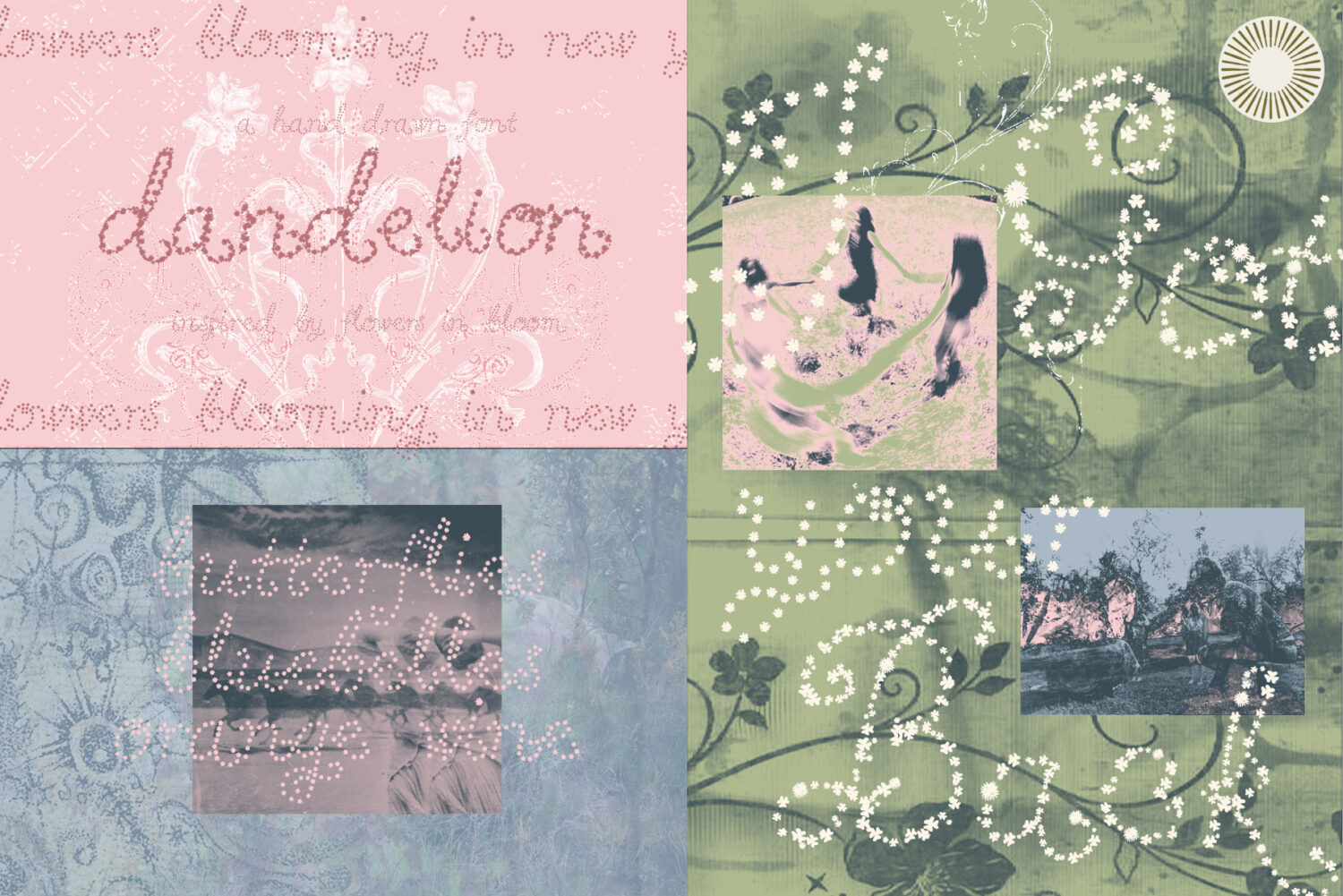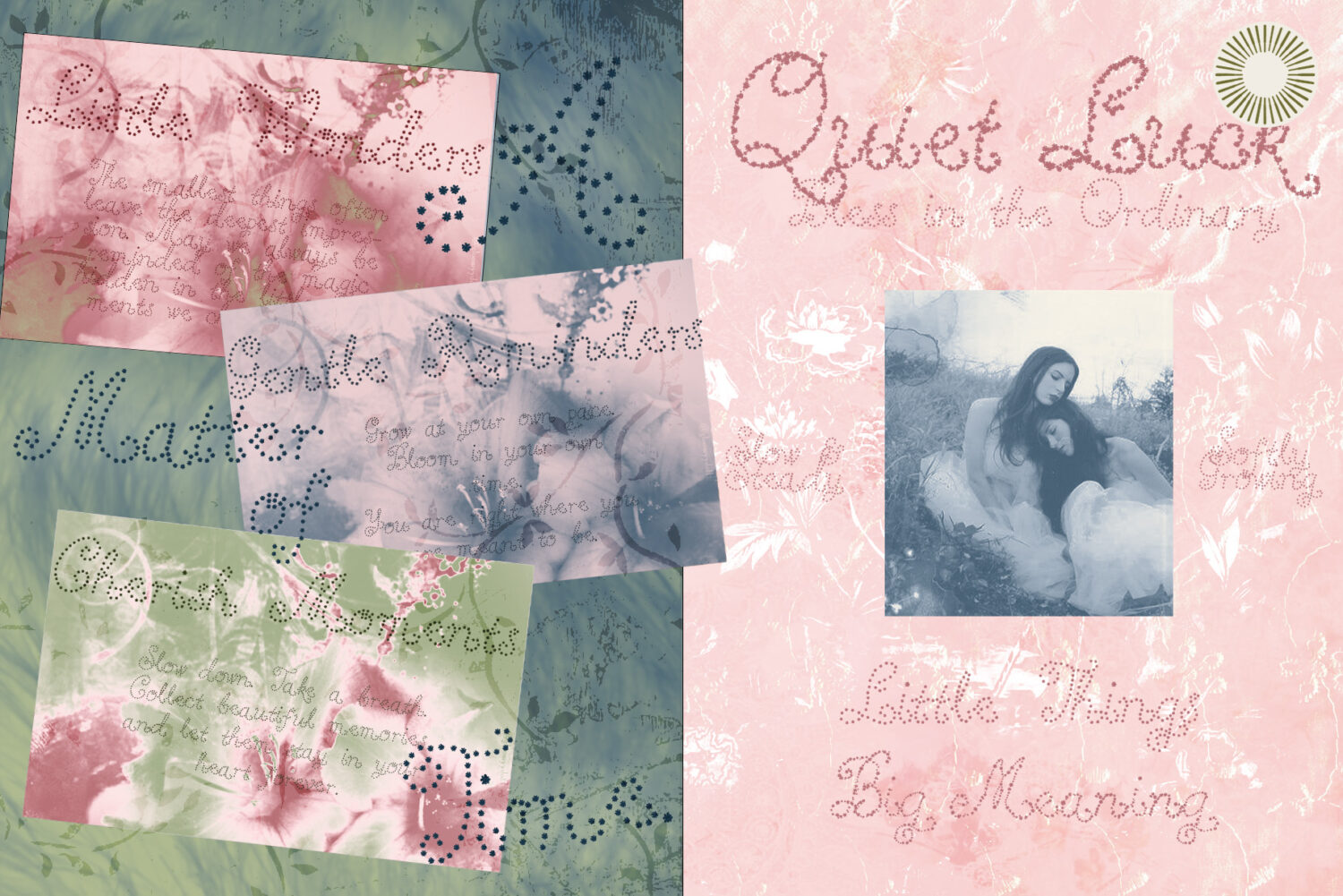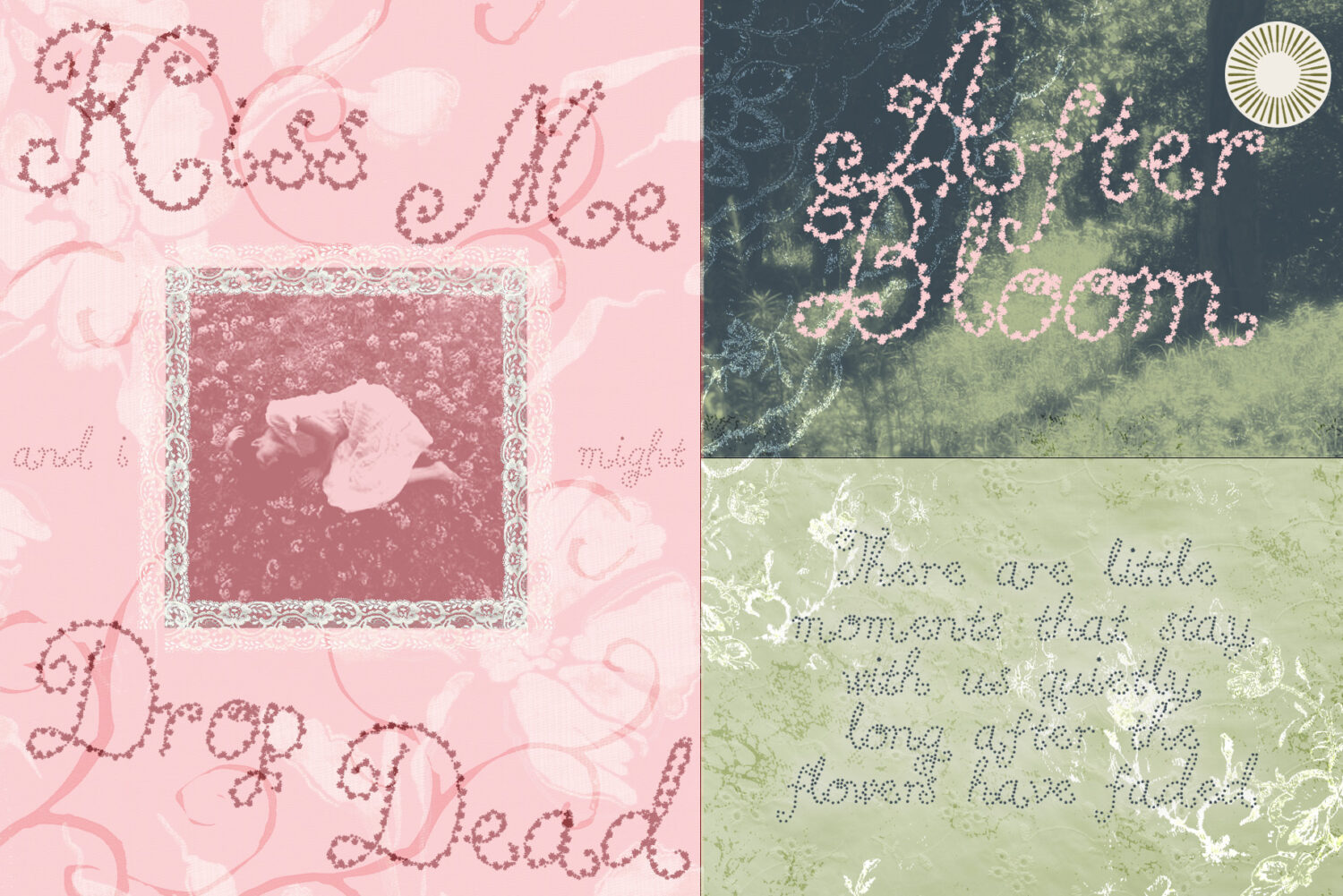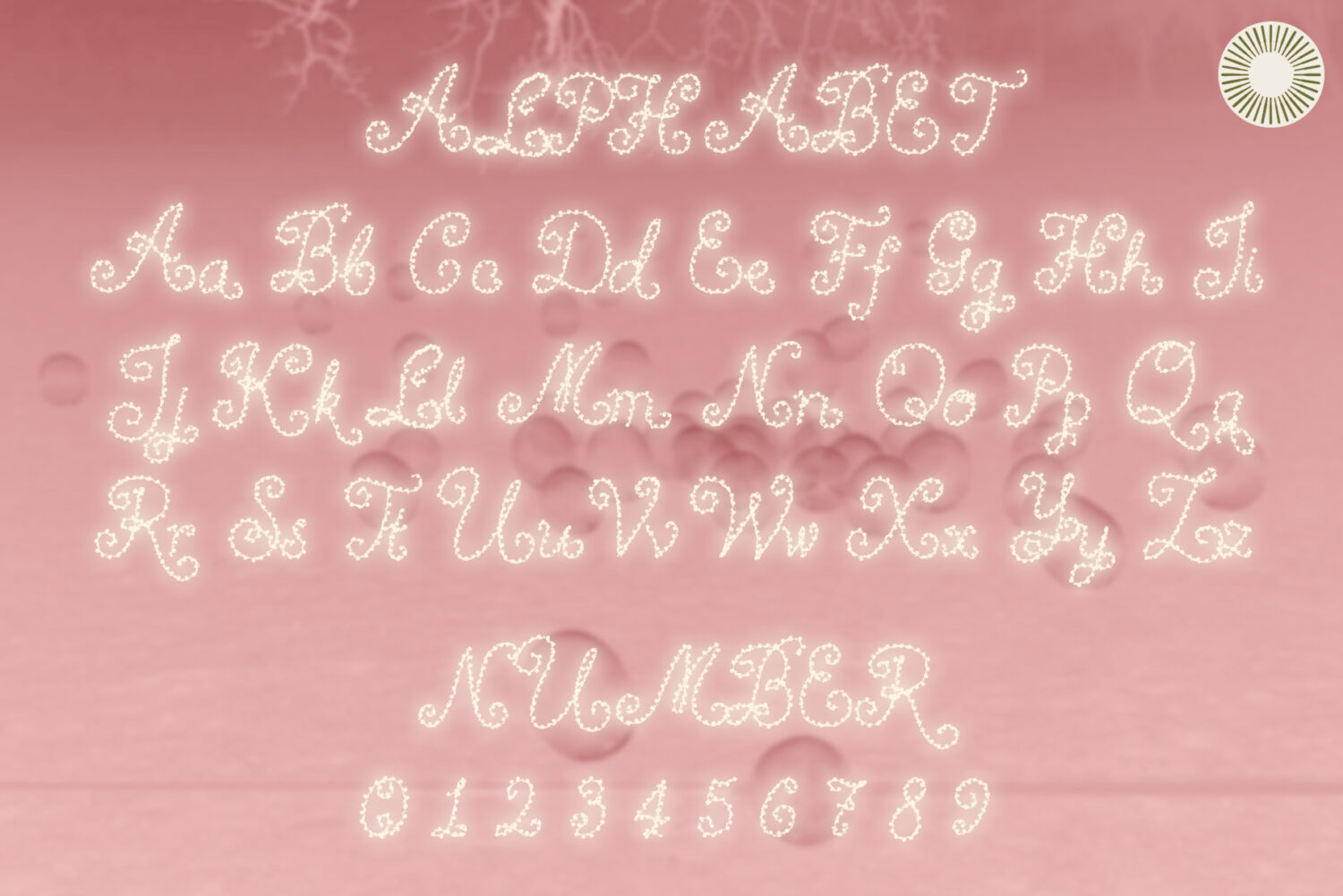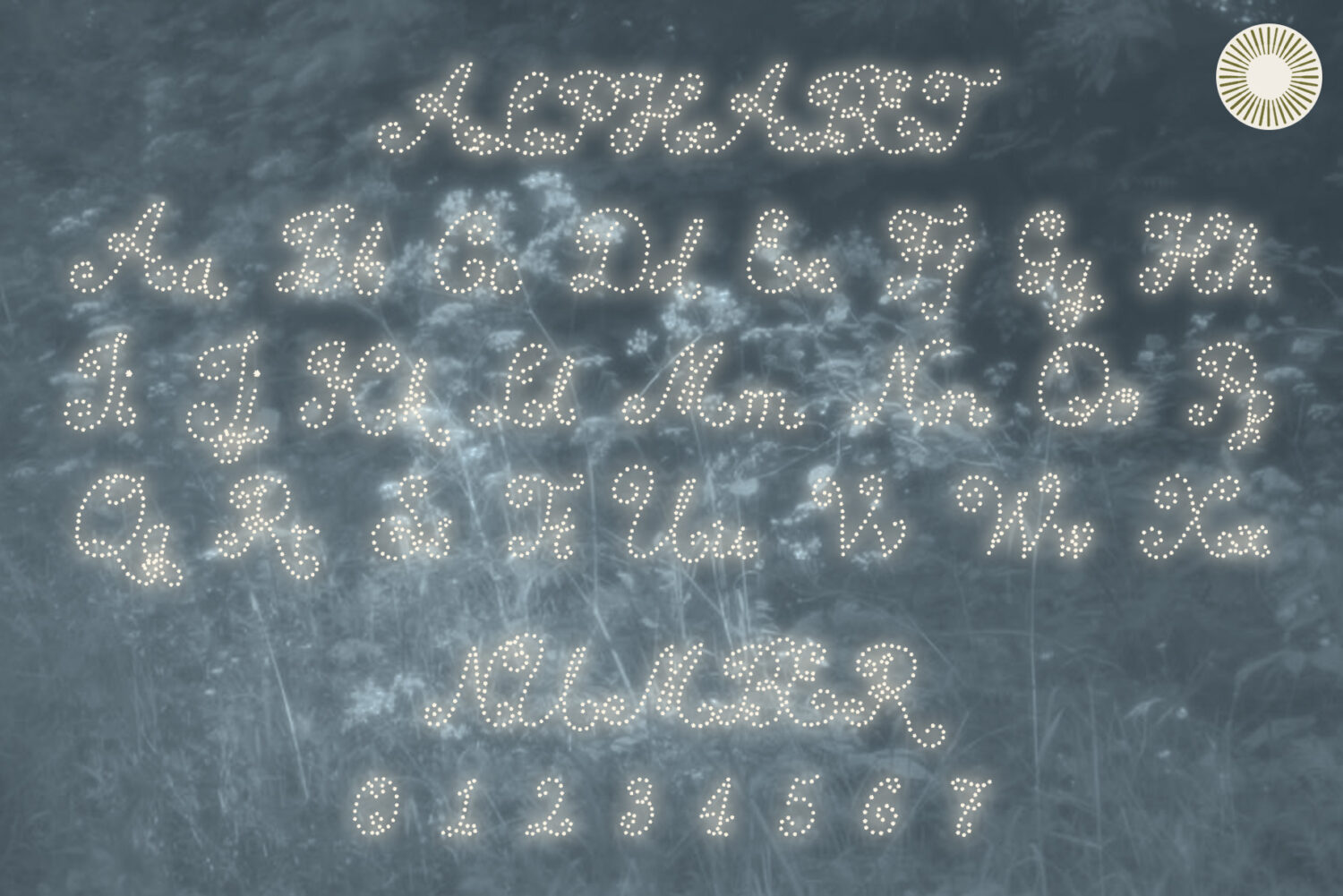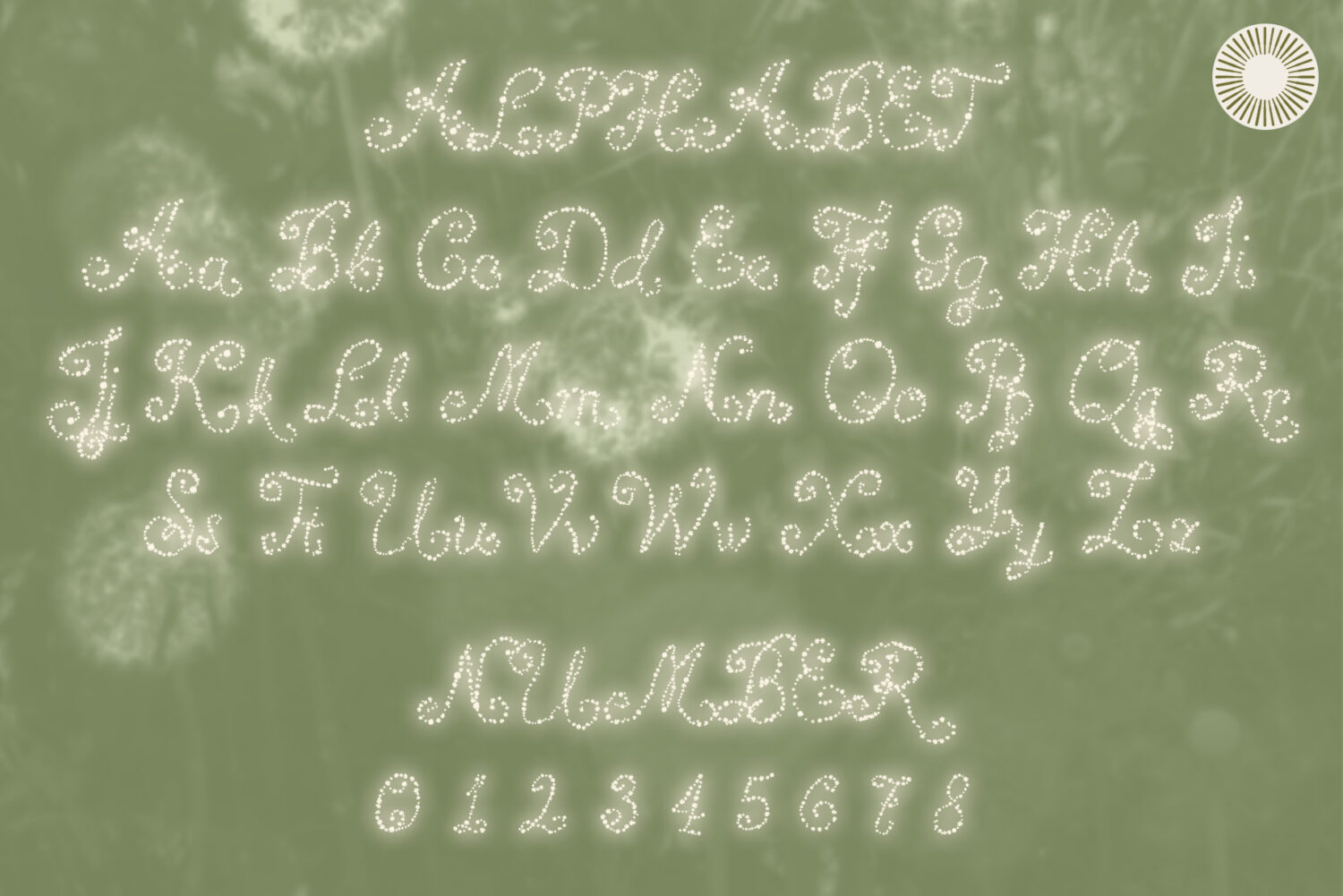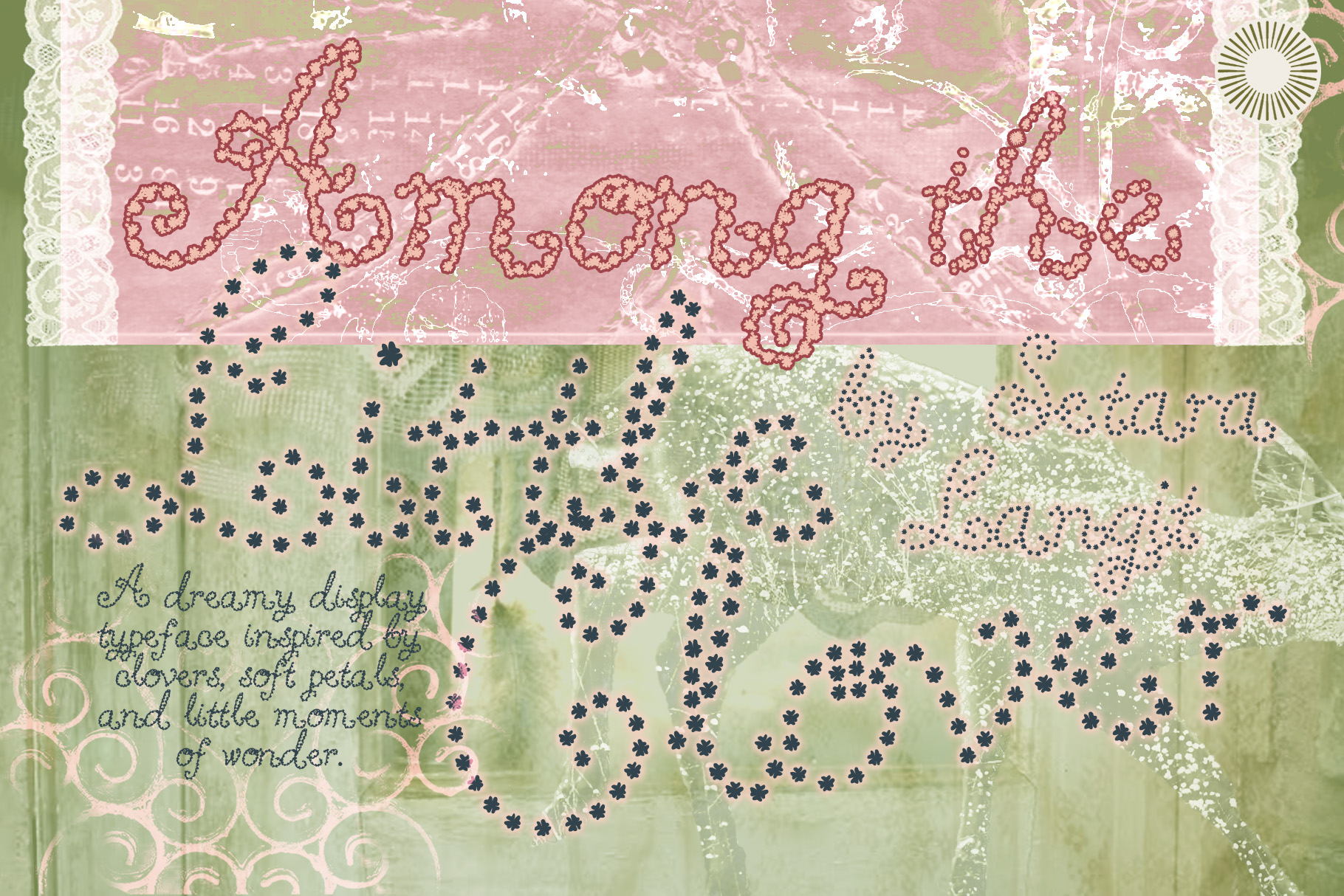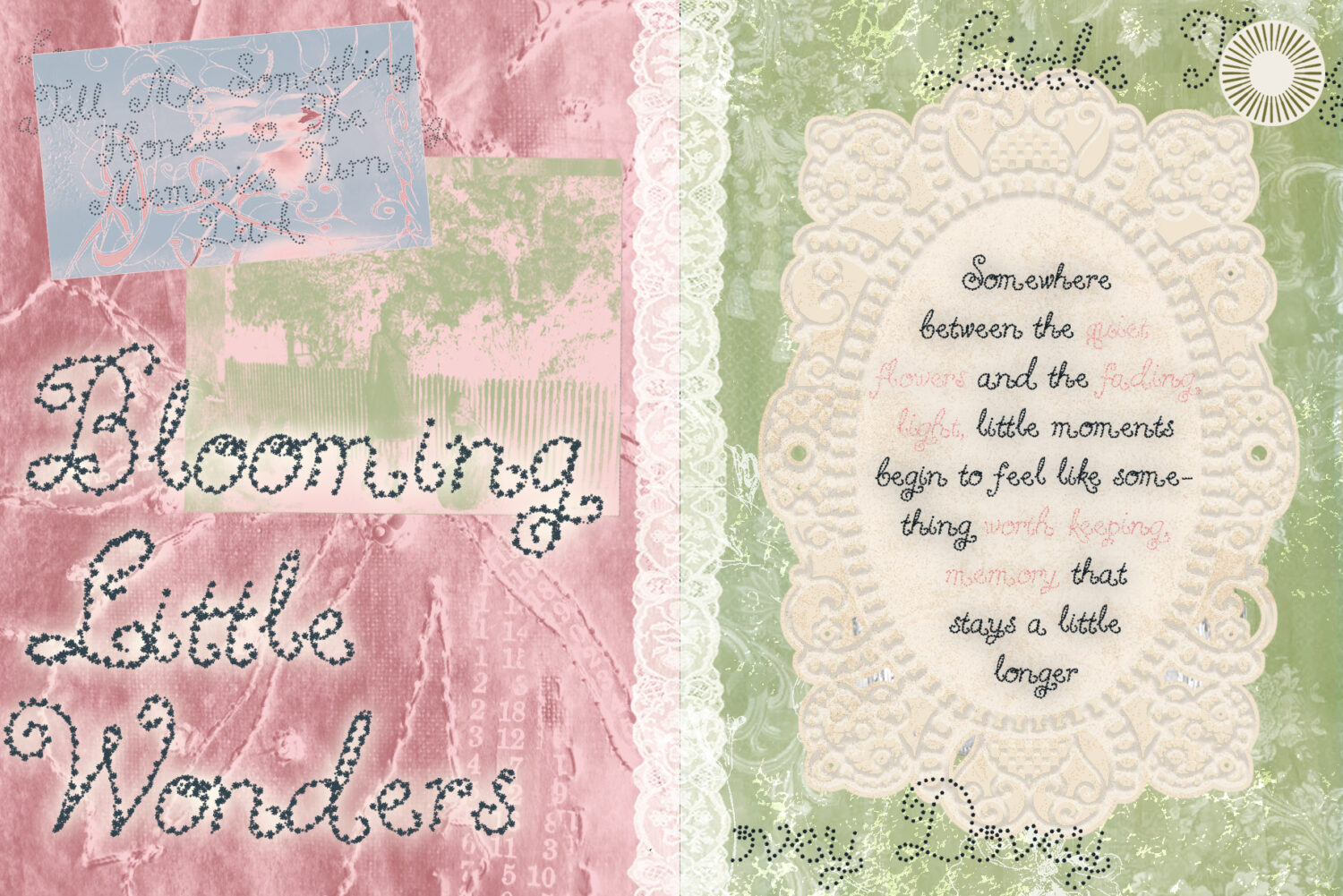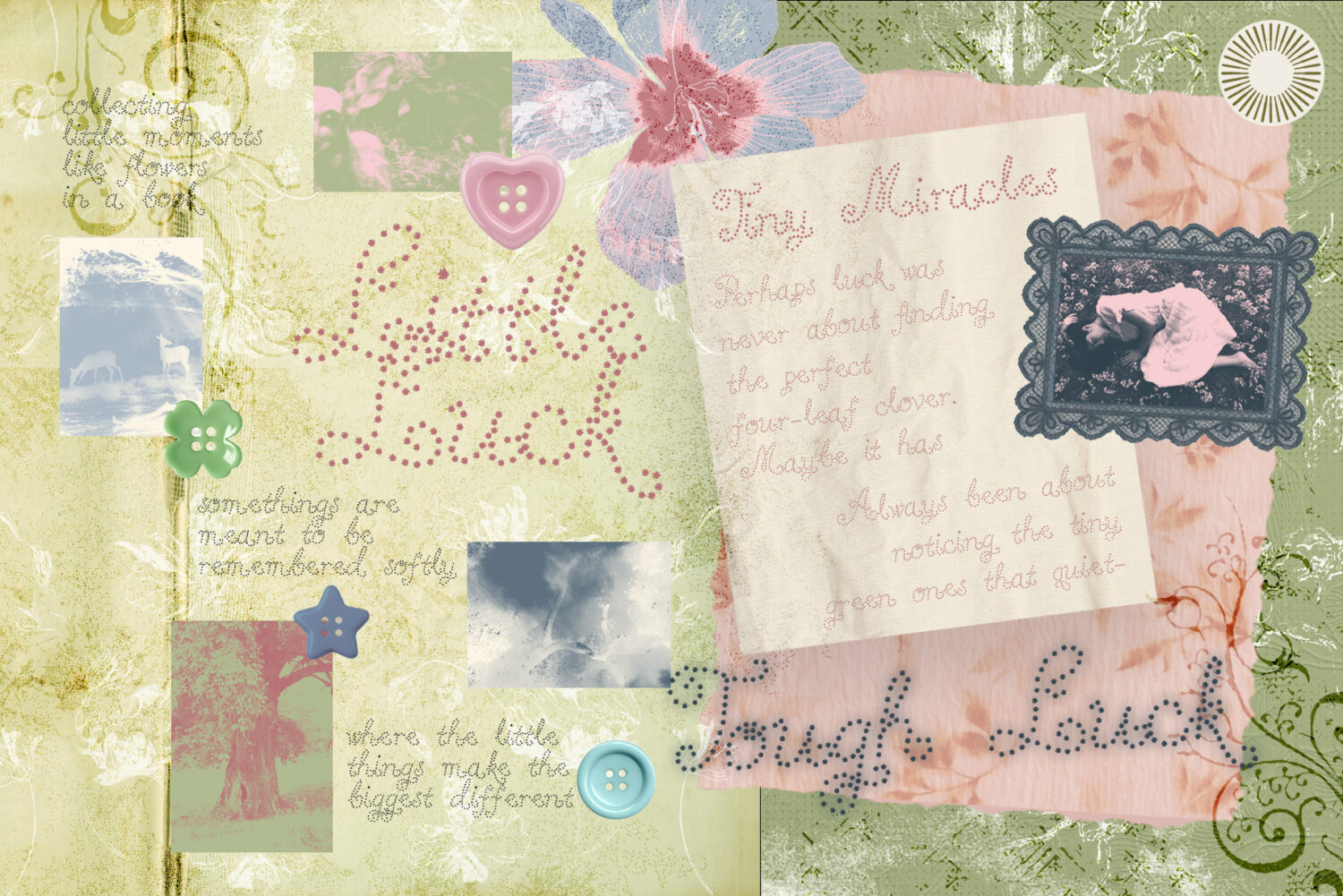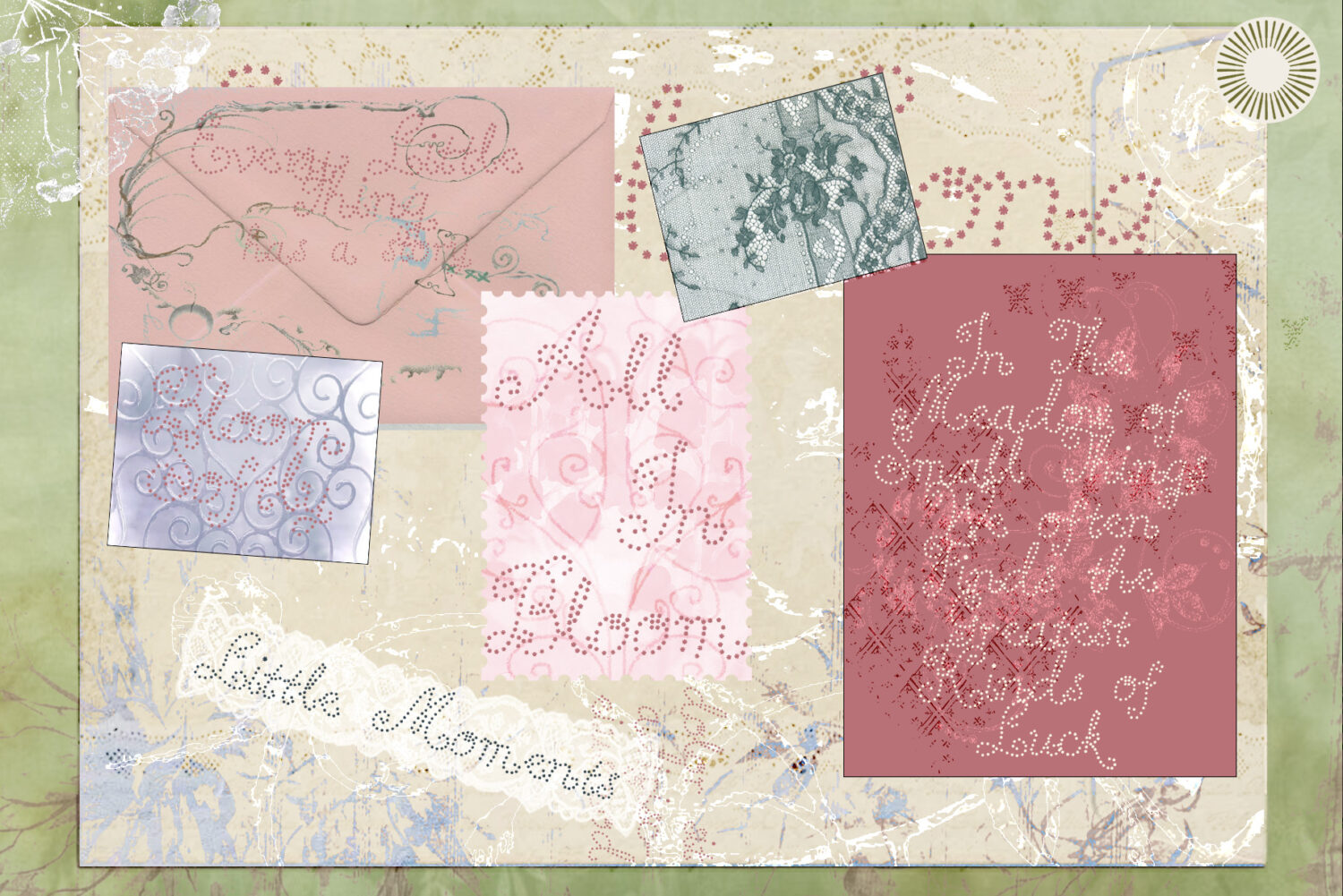
Little Clover - Organic whimsical script, based on experimental shape, inspired from garden
Little Clover - 3&4 Leaves
Little Clover - 4 Leaves
Little Clover - Wild Clover
Little Clover- Botanical Script Font
Little Clover is a whimsical floral script font inspired by wild gardens, botanical details, and the charm of handmade lettering. Its expressive strokes and decorative character bring a soft, nostalgic, and playful feeling to every word.
Designed to feel organic rather than overly polished, Little Clover works beautifully for projects that need personality, warmth, and a touch of vintage charm. Its decorative script style makes it especially effective for expressive headlines, logos, packaging, and creative branding.
Little Clover brings a little wildness to your words — playful, botanical, and beautifully imperfect.
Perfect for
• Floral & botanical branding
• Cottagecore projects
• Wedding invitations
• Greeting cards
• Stationery
• Packaging design
• Boutique branding
• Beauty & lifestyle brands
• Handmade products
• Editorial titles
• Posters
• Social media graphics
• Logos & wordmarks
• Apparel and merchandise
• Creative storytelling projects